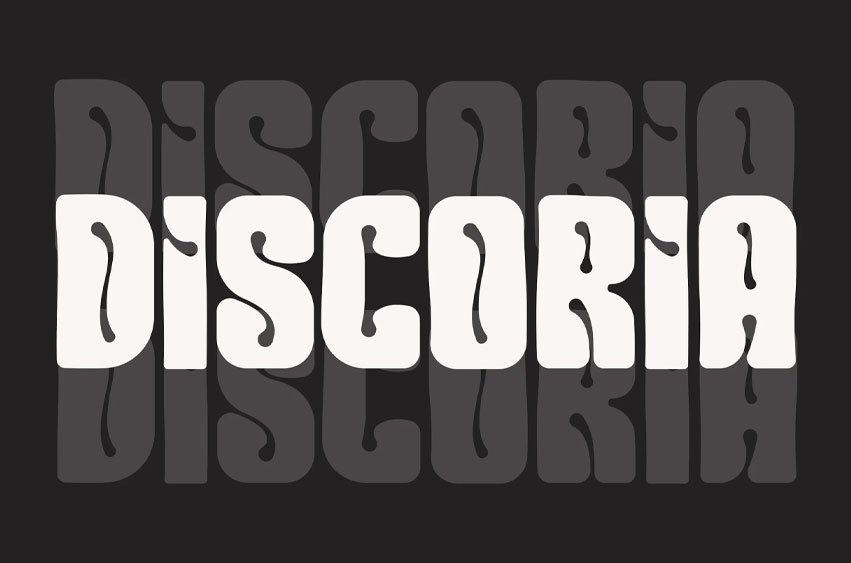
Discoria Font takes you straight back to the vibrant and rhythmic vibes of the disco era! This groovy display font features bold, playful letterforms with wavy, psychedelic undertones—perfect for any retro-themed project. With its unique, eye-catching design, DISCORIA is ideal for bringing bold nostalgia to your designs.
Whether you’re designing for music events, nightclub branding, retro posters, or album covers, DISCORIA will make your message groove with style. Its versatile and funky appearance works equally well in digital and print projects, adding a touch of the 70s and 80s charm.